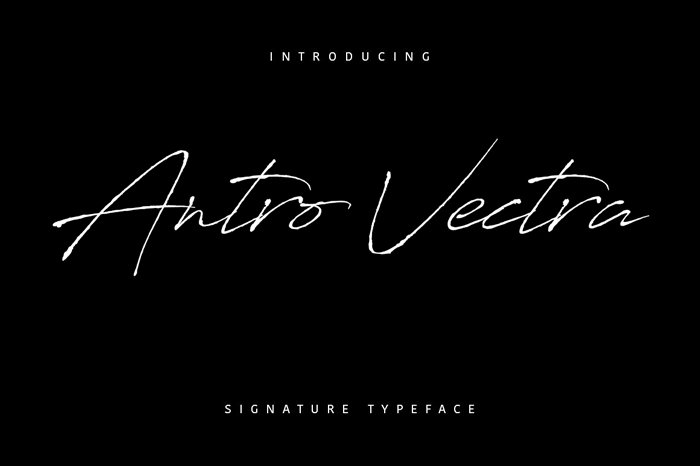
Antro Vectra Script Font
Glad to introduce you an impressive handwriting. Introducing Antro Vectra Script Font! Antro Vectra was designed and shares by Youssef Habchi. “Antro Vectra Script” is perfectly suited to signature, stationery, logo, typography quotes, magazine or book cover, website header, clothing, branding, packaging design and more